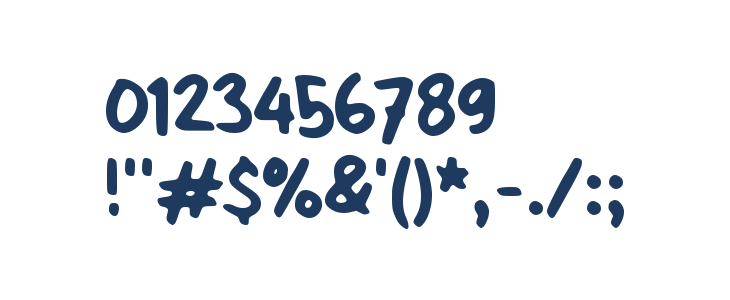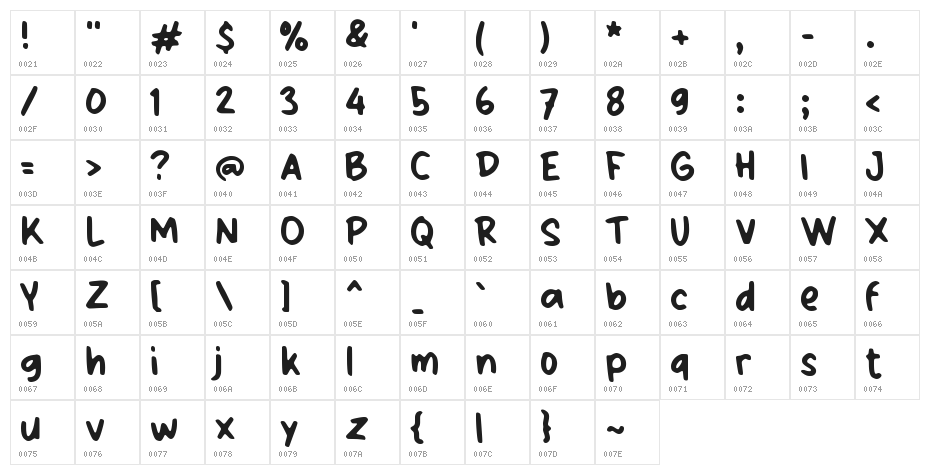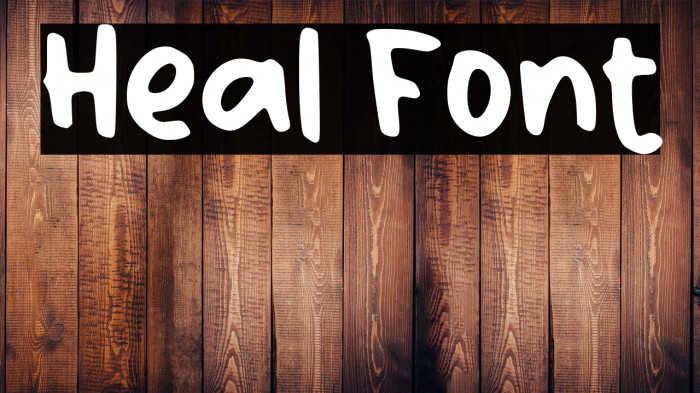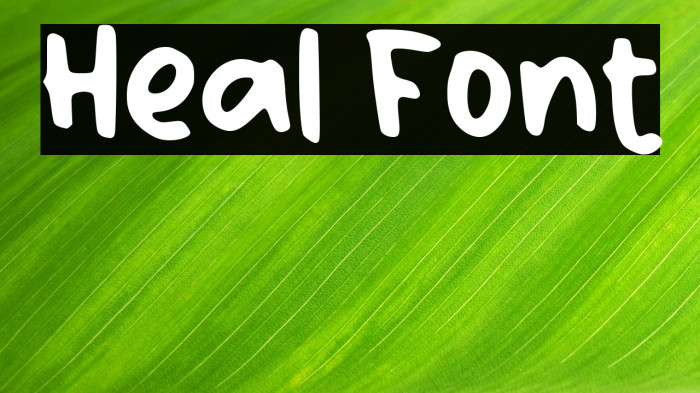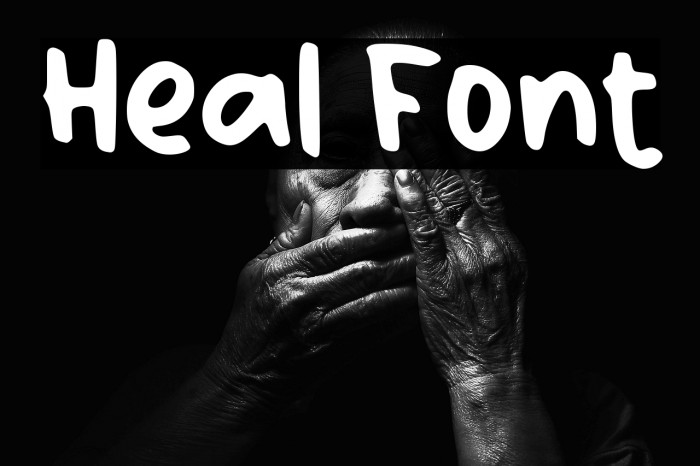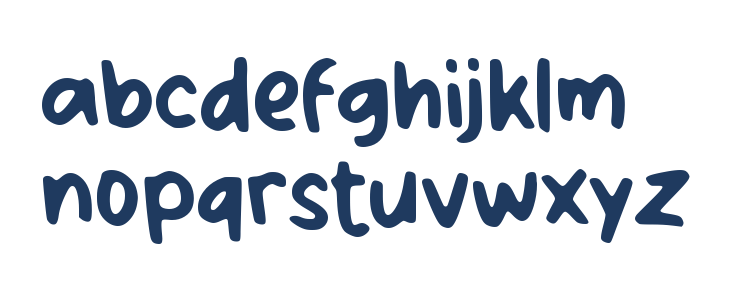
Heal Font
Heal Description
This font features a playful and bold style with rounded edges and a hand-drawn appearance. The characters are slightly irregular, giving it a casual and friendly feel. The uppercase and lowercase letters are well-balanced, maintaining a consistent weight throughout. Numbers and special characters follow the same playful design, making it suitable for informal and creative projects. Its unique style stands out, making it ideal for designs that require a touch of whimsy and personality.
| Overall Style | Playful |
| Proposed Projects | Ideal for children's books, playful branding, casual invitations, and creative posters. |